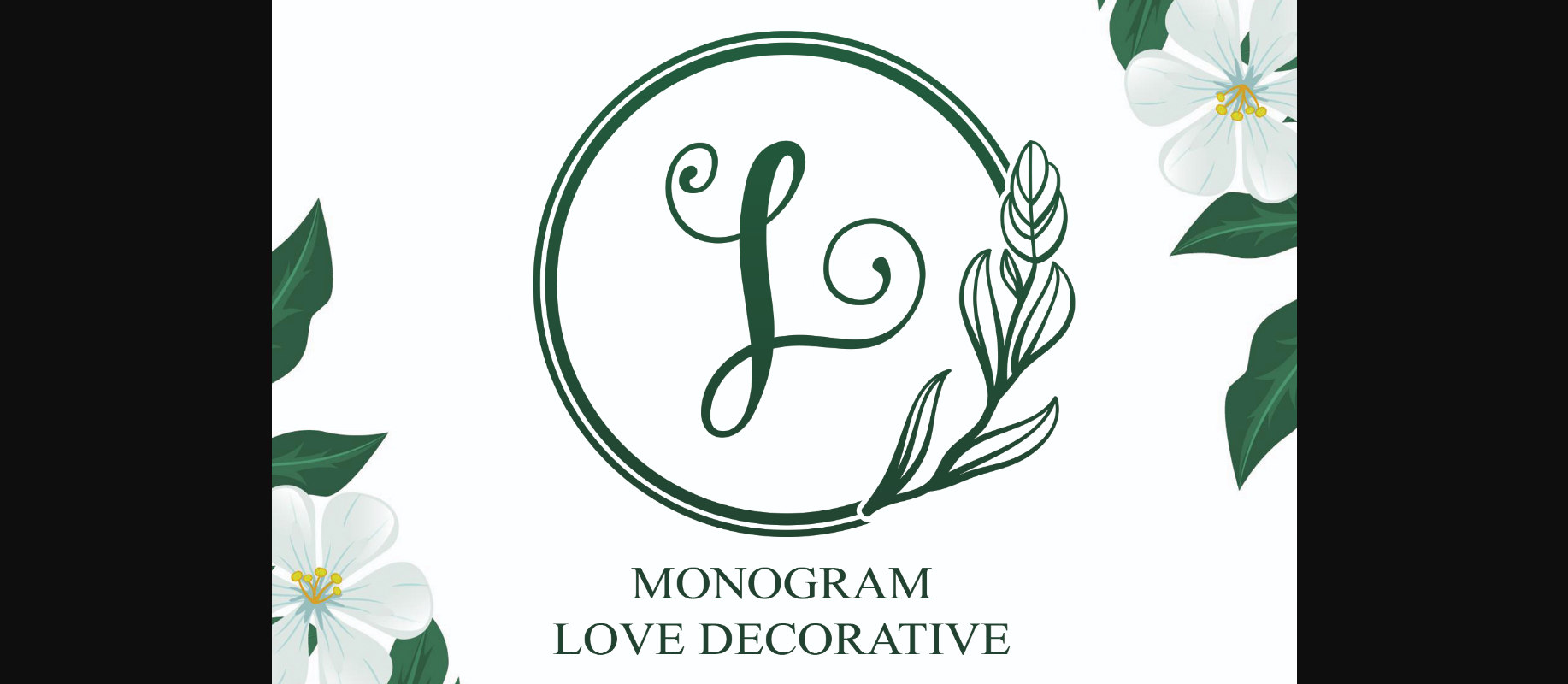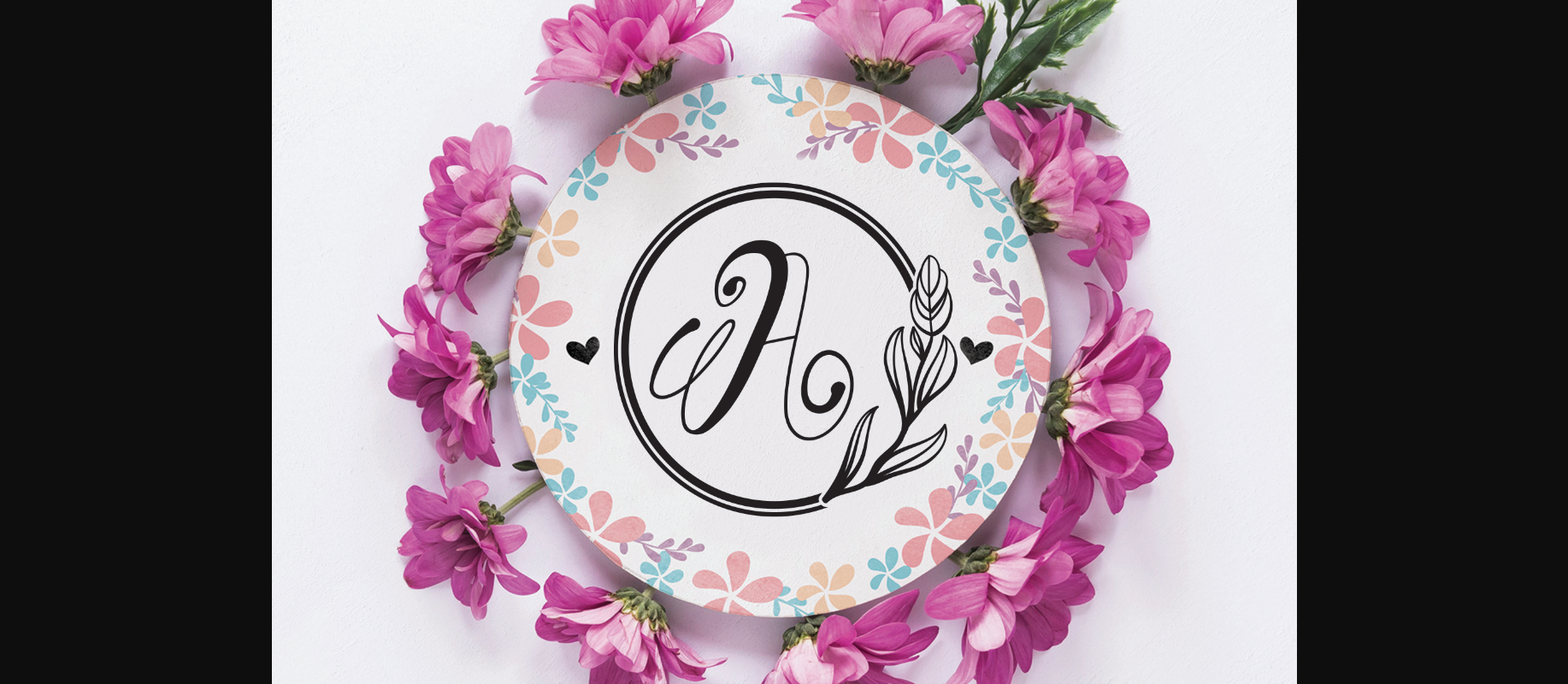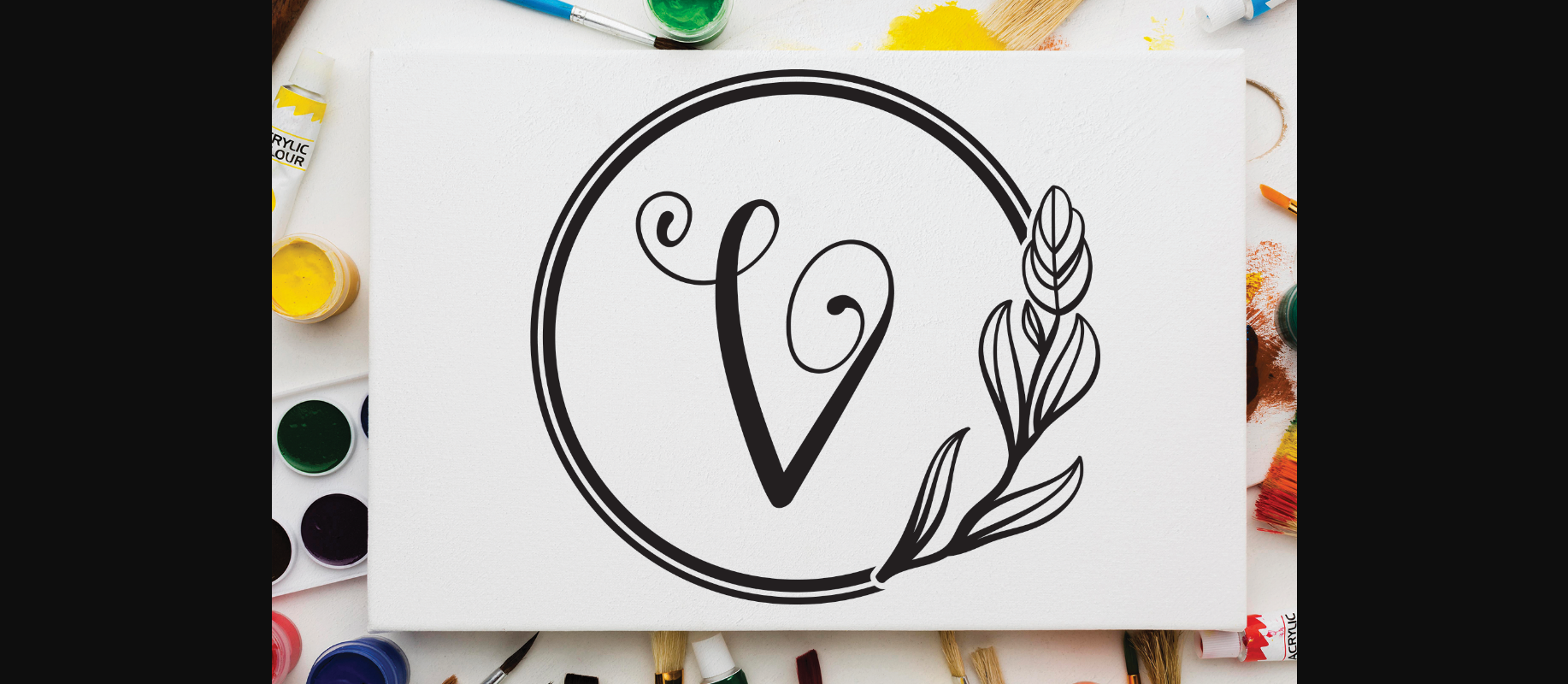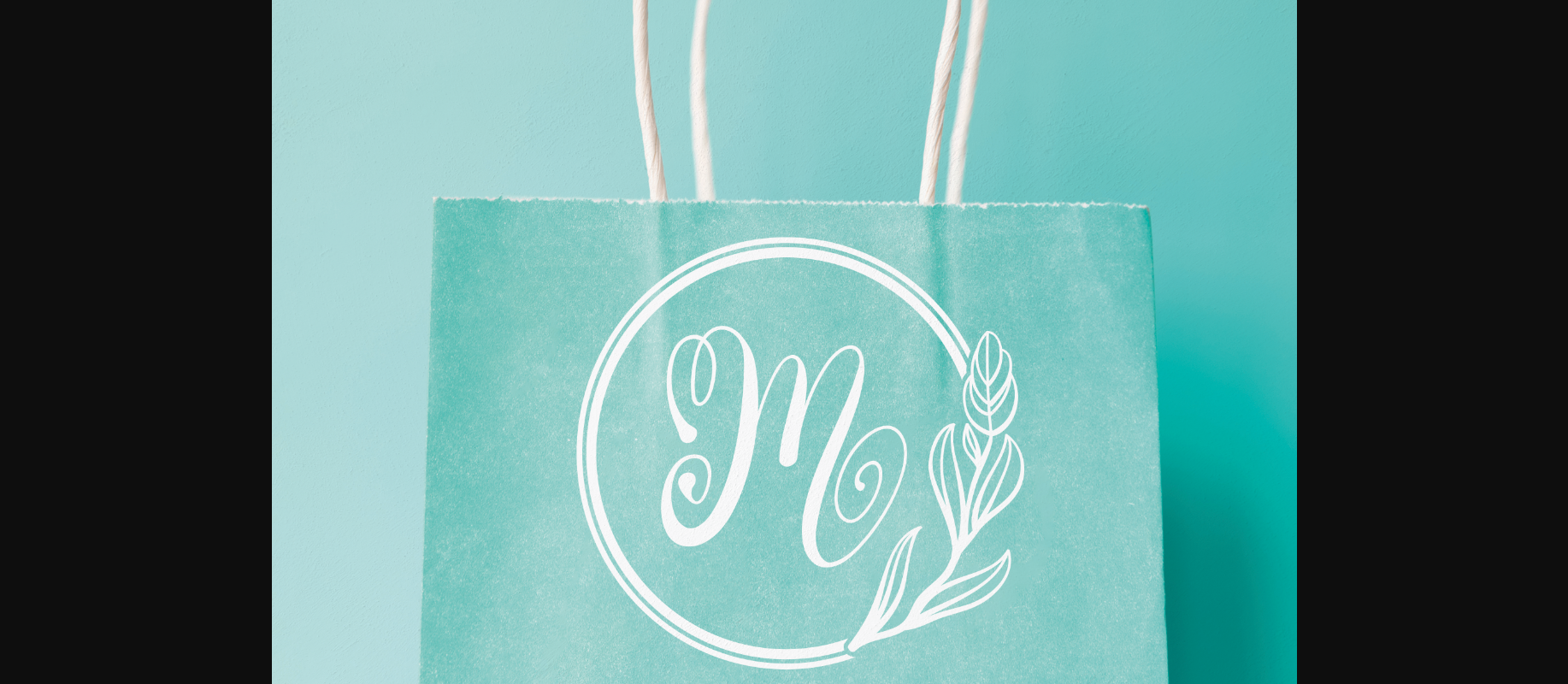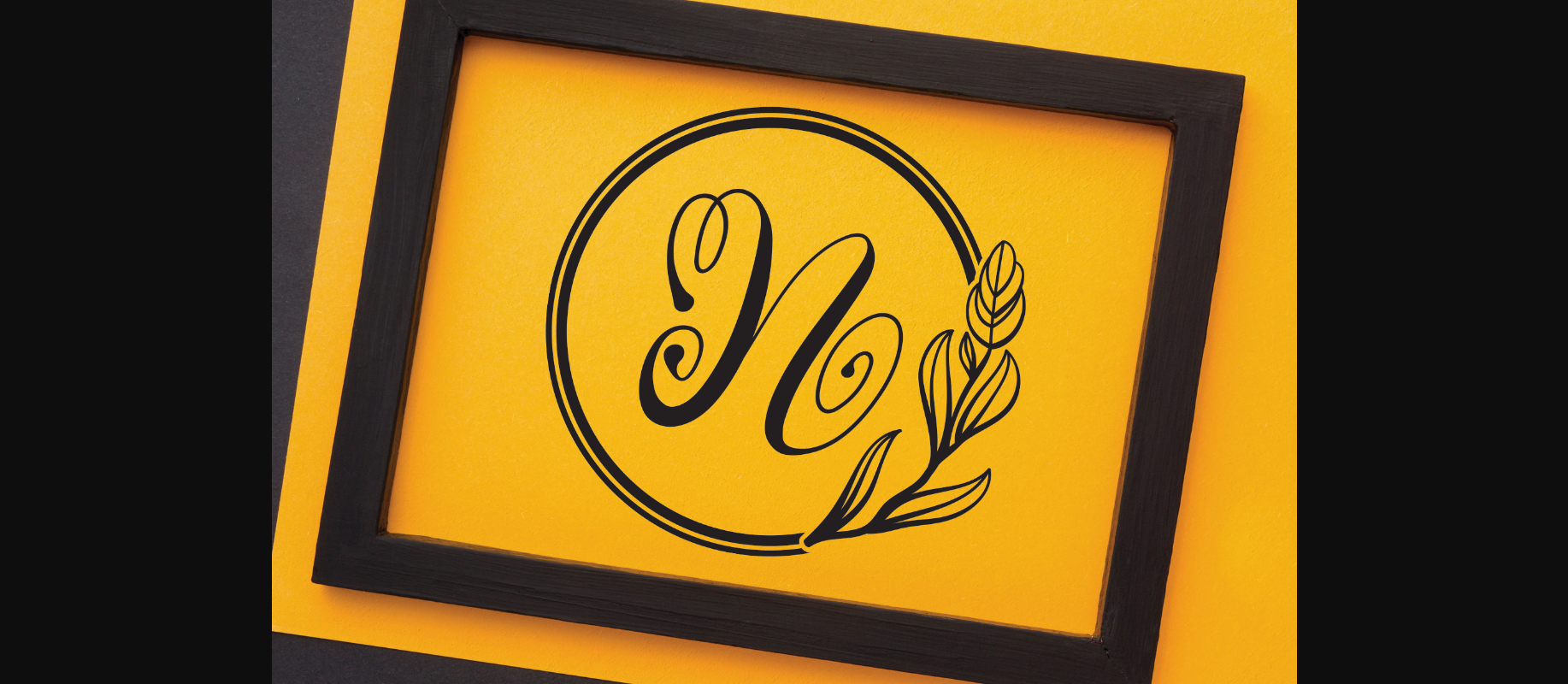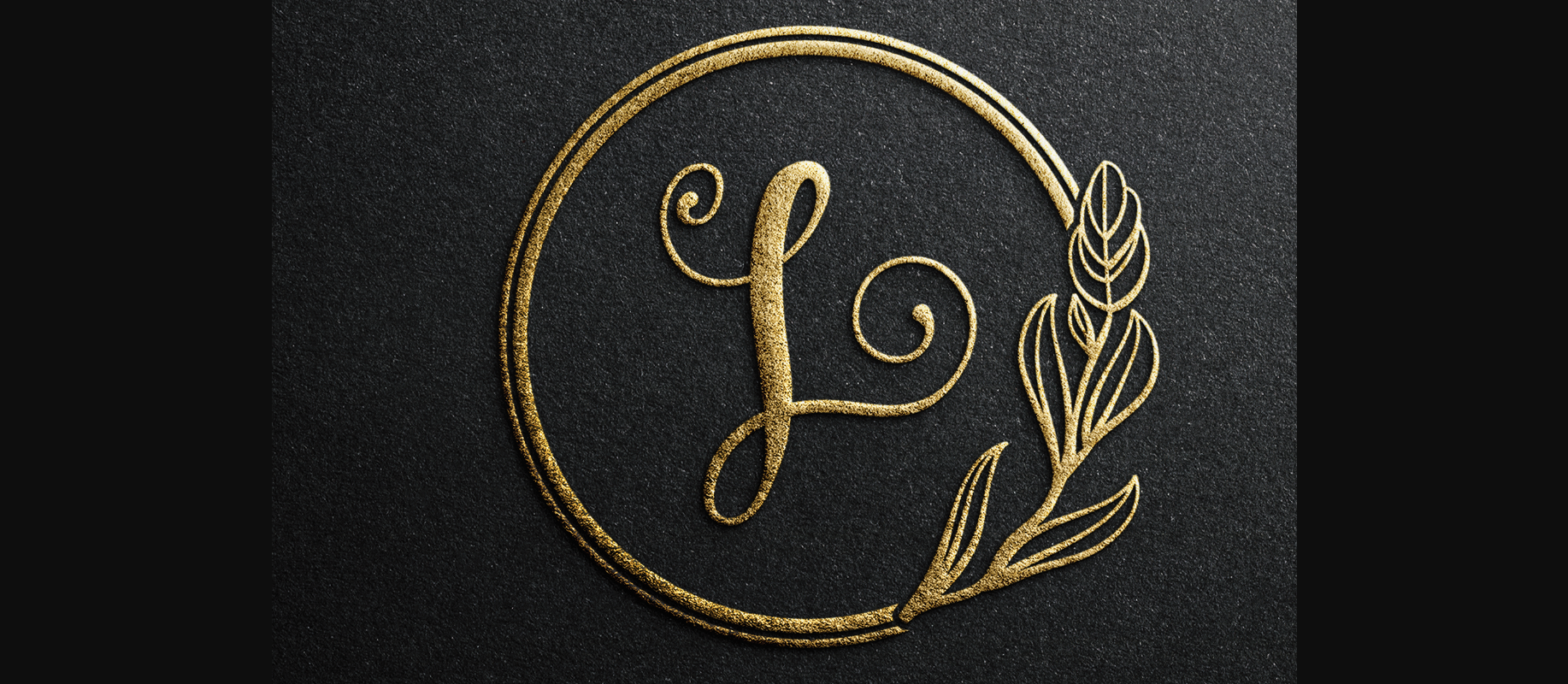
Love Font
About Love Font
Love is a delicate and sweet decorative font. Add this romantic and beautiful looking font to each of your love letters, wedding invitations or favorite design ideas, and you will be astounded by the outcome.